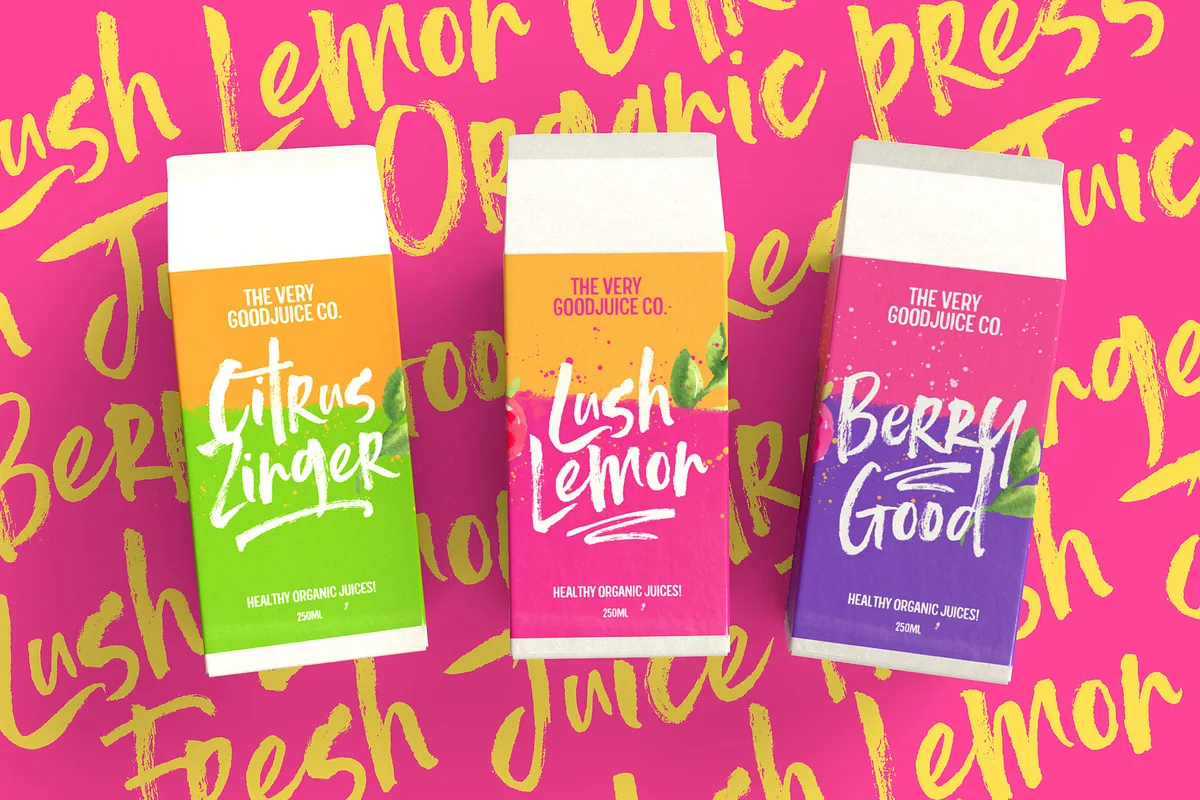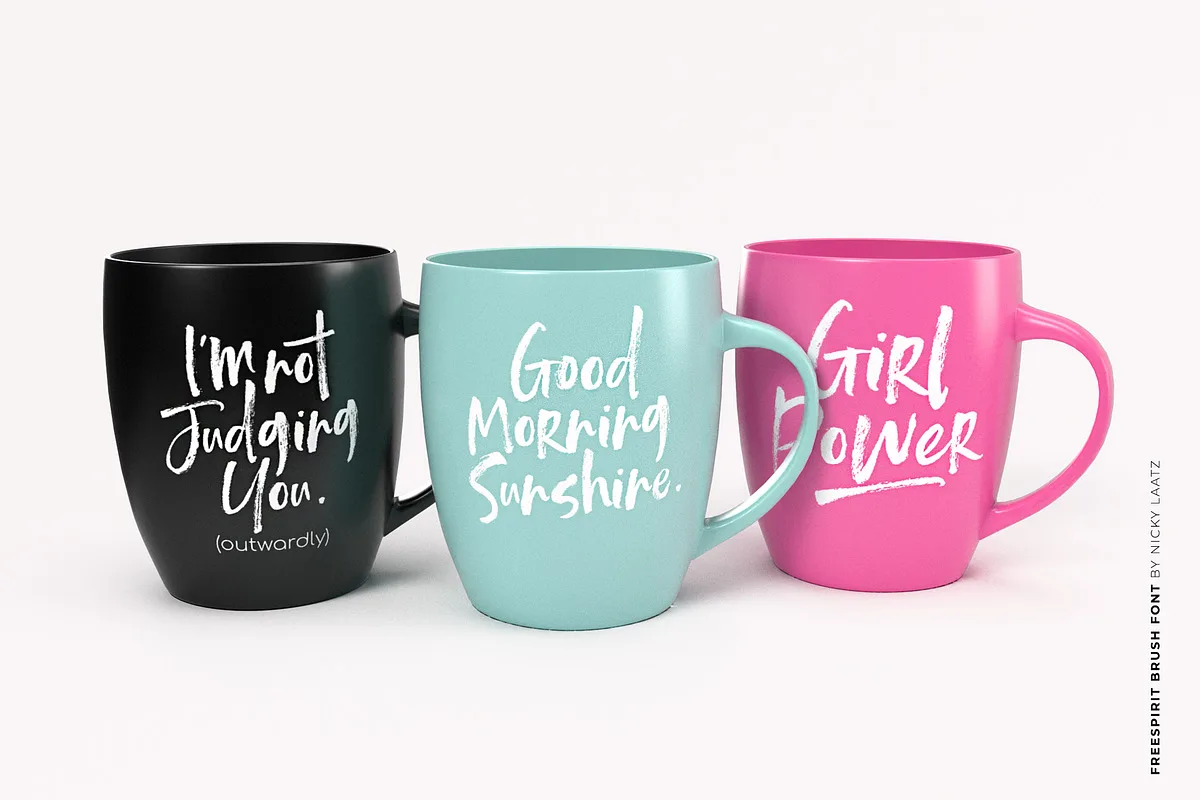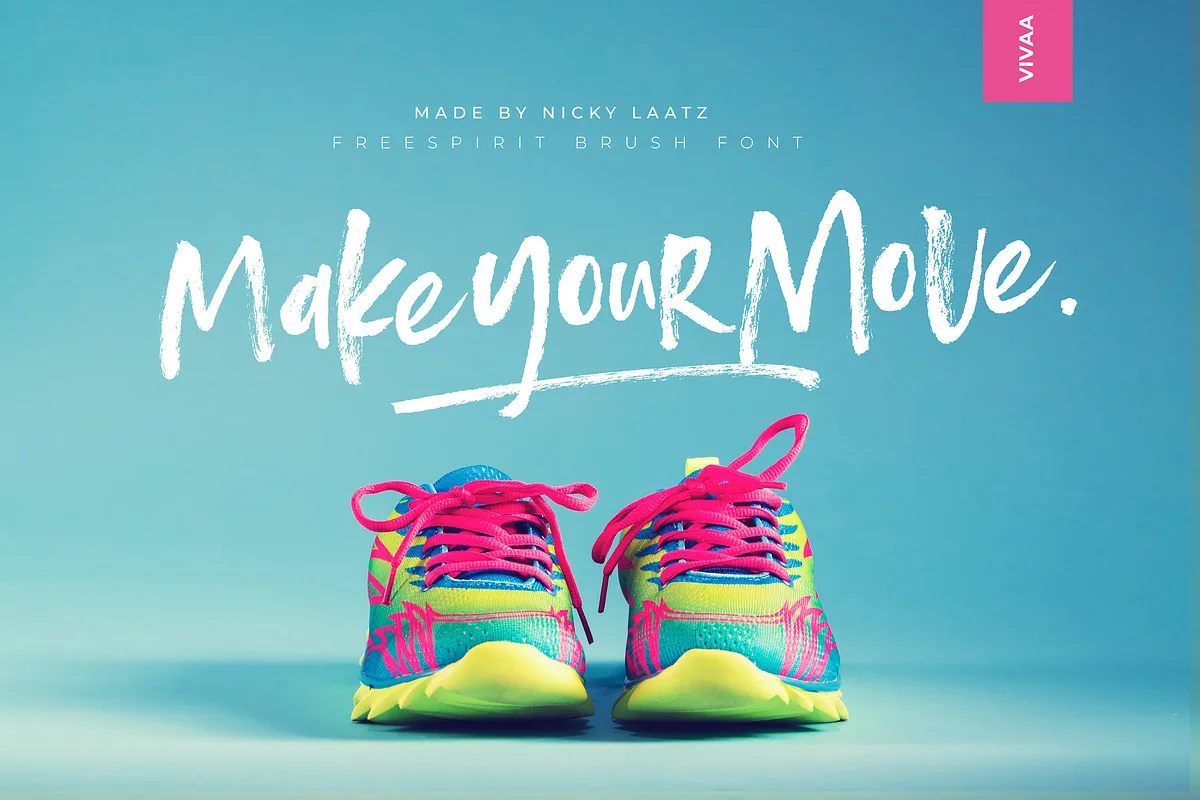
Turn up the Punchy Fun Factor with ‘Freespirit Brush Font‘. With a highly detailed dry brush texture, and a messy baseline, this font is perfect for effortlessly making that outrageously bold statement in your design projects.
It consists of two fonts – allowing you to interchange any letters and have flexibility in how you want your design to look. Perfect for Branding, logos, packaging design, poster art, magazines, adverts, greetings and so much more – the list is really endless.